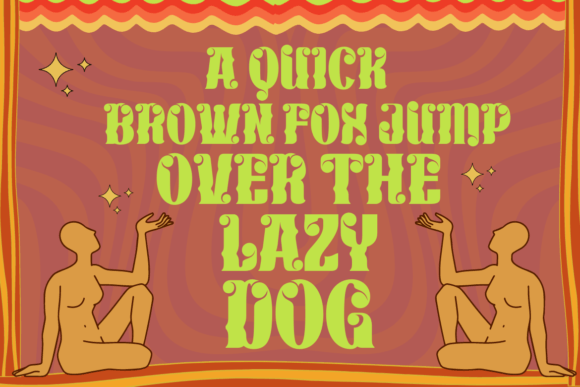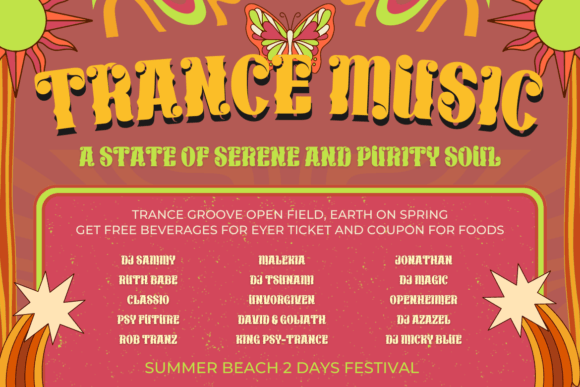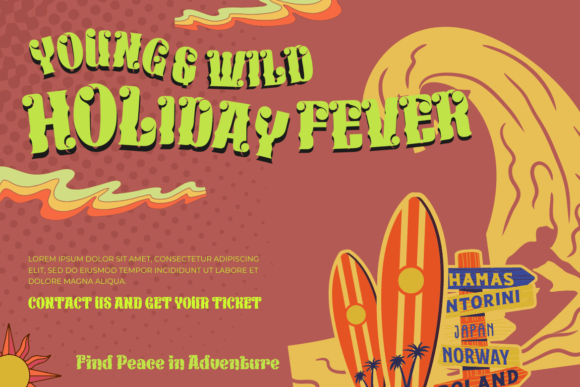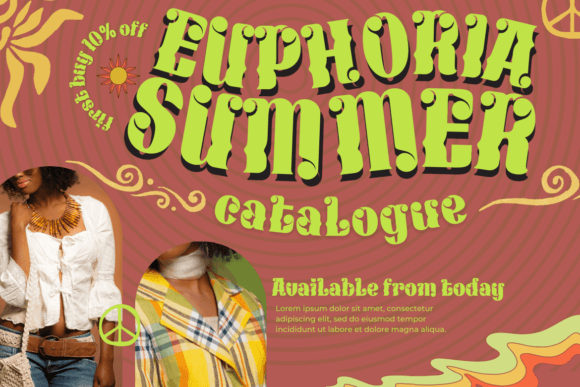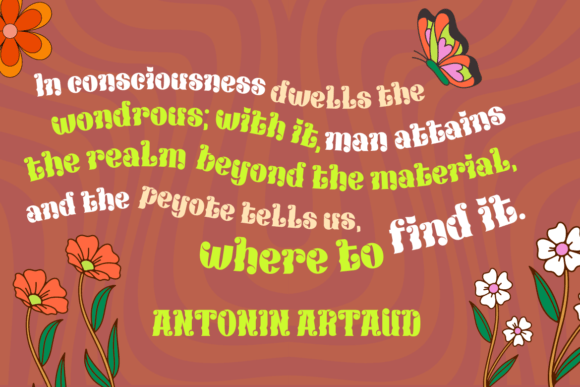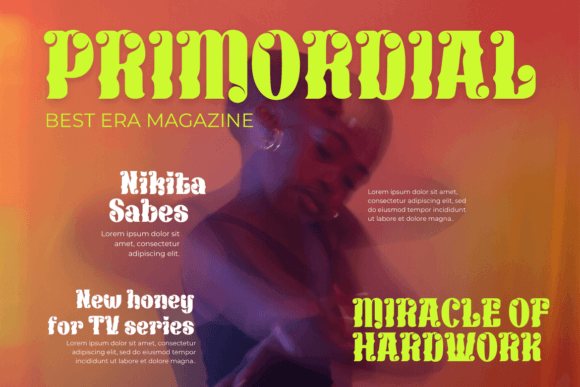
Introduction to Kexinu Font
Kexinu is a psychedelic-inspired display typeface.
It has a stylish, and bold character that is ideal if you need some funk added to your projects This retro font has a bold and playful character, that will work great for any design project.
Key Features of Kexinu Font